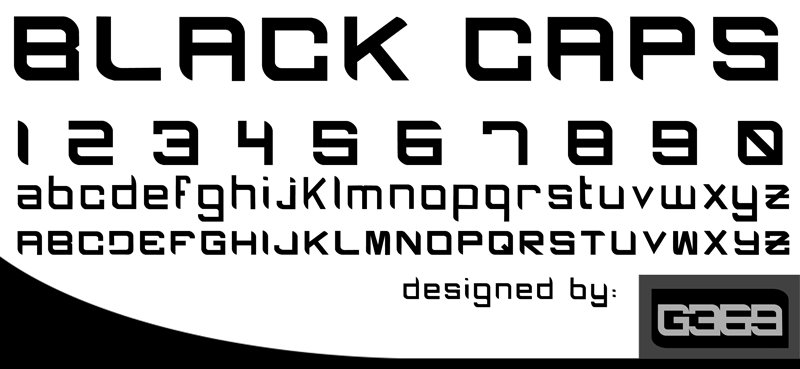
Preview and download Black Caps Font. Created by Gianluca Aiello in Techno Sci-fi styles with Shareware license.
Is a strong high-impact font. I guess the best way to use it is writing with the caps-lock. If you set "0" space between characters, you'll have a nice effect, as I did in my logo. ----- For info or suggestions: gianluca369[at]gmail.com |